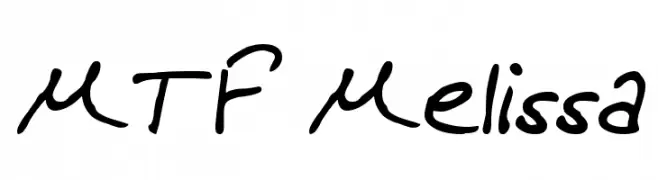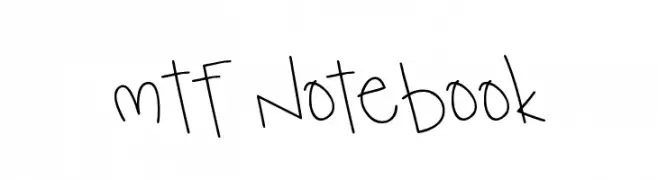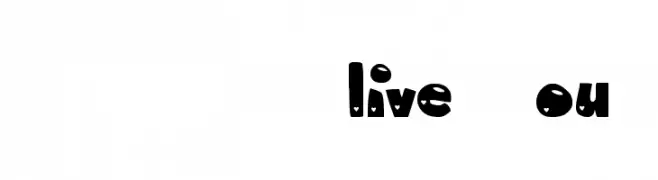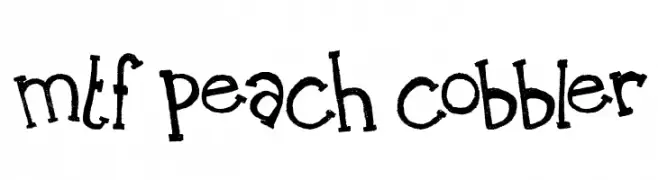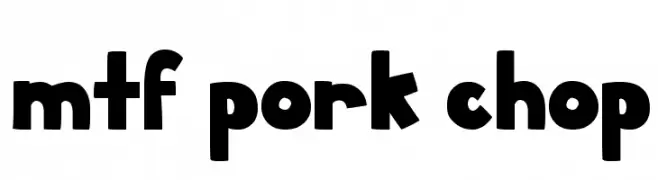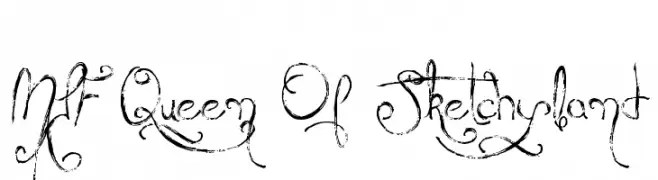
A casual, handwritten font with a playful and informal style.
A playful, handwritten font with whimsical, informal characteristics.
A casual, handwritten font with fluid strokes and a personal touch.
A playful, handwritten font with fluid strokes and a casual style.
A playful, handwritten font with a casual and friendly appearance.
A playful handwritten font with a casual, whimsical style.
A playful, heart-adorned font with bold, rounded characters.
A playful, hand-drawn font with a whimsical and friendly style.
A playful, bold font with rounded characters and a whimsical style.
A whimsical, sketchy font with decorative swirls and flourishes.